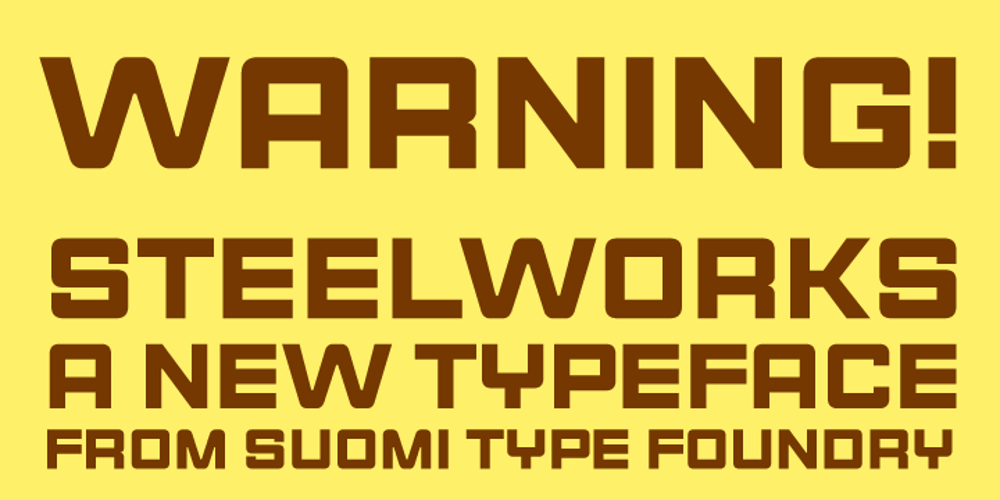
Steelworks
Steelworks font
Steelworks Font Family was designed by Tomi Haaparanta and published by Suomi. Steelworks contains 1 styles and family package options. Steelworks is a headline font based on lettering on a plaque of the Henry Avenue Forge in Winnipeg, Manitoba, Canada.